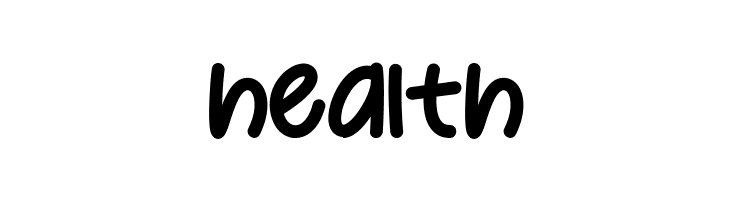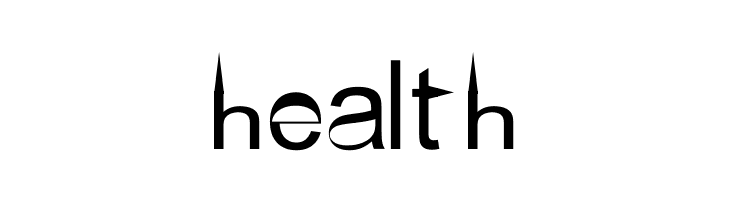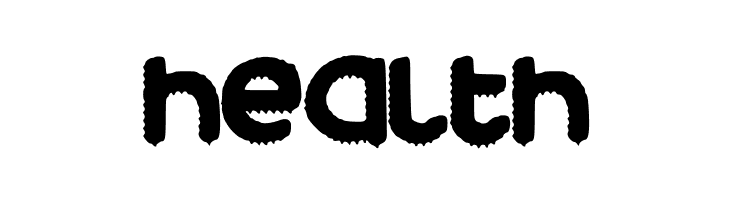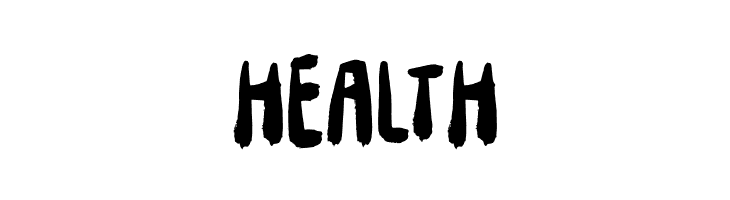
( Fonts by Gyom Seguin - last-soundtrack.daportfolio.com )
A distressed, grunge-style font with a textured, weathered appearance.
( Fonts by Gyom Seguin - last-soundtrack.daportfolio.com )
A distressed, vintage-style font with a bold, weathered appearance.
( Fonts by Christopher Hansen )
A bold, distressed font with a grunge aesthetic and angular, geometric characters.
( Fonts by Gyom Seguin - last-soundtrack.daportfolio.com )
A bold, distressed font with a vintage rock poster vibe.
( Fonts by Christopher Hansen )
A distressed, grungy font with chaotic, textured characters.
( Fonts by Gyom Seguin - last-soundtrack.daportfolio.com )
A bold, distressed font with a grunge aesthetic and chaotic texture.
( Fonts by Rodrigo German - RASDESIGN )
A bold, decorative font with an urban, graffiti-inspired style.
( Fonts by Rodrigo German - RASDESIGN )
A bold, decorative font with a chain-like pattern and rounded strokes.
( Fonts by Thomas O`Callaghan - www.tomocallaghan.co.uk )
A bold, hand-drawn font with a playful, coffee-stain aesthetic.
( Fonts by Anita Wainer - www.jamondelmar.com )
A playful, matchstick-themed decorative font ideal for creative projects.